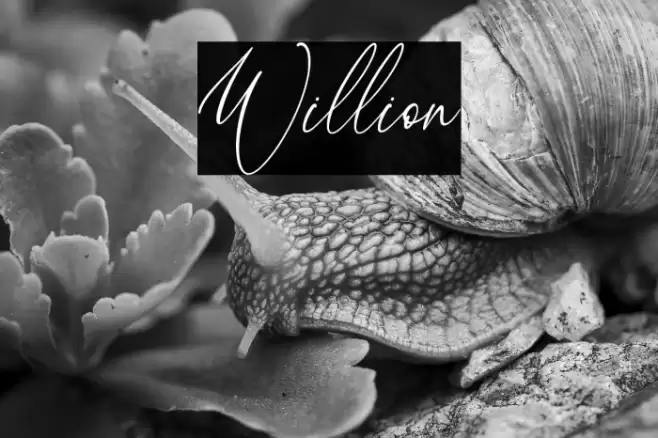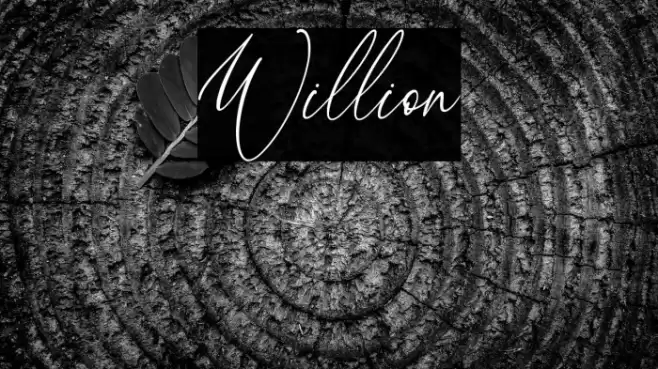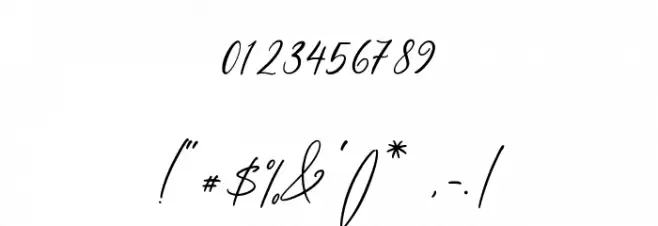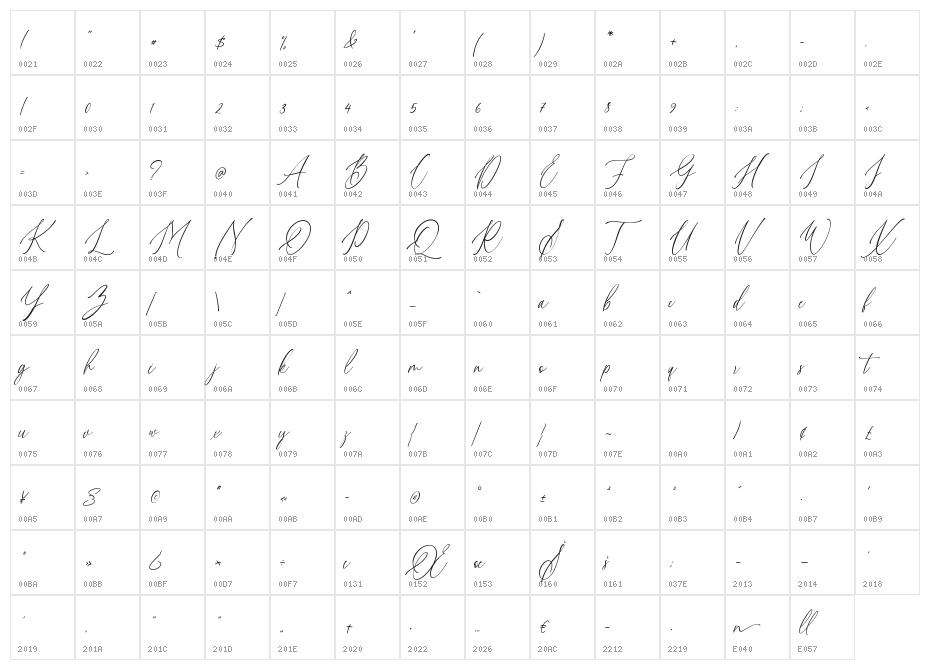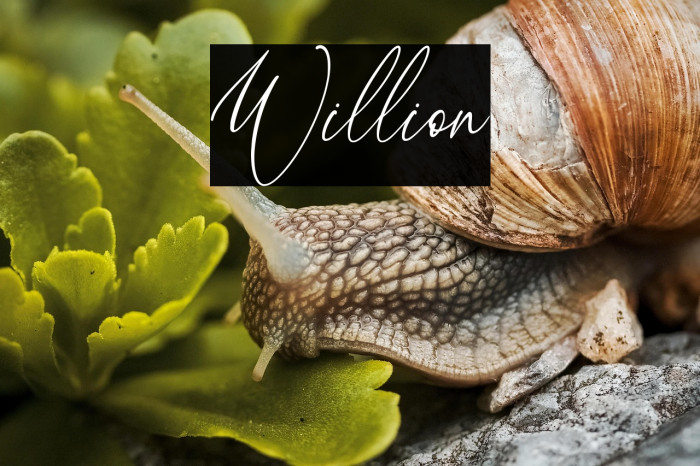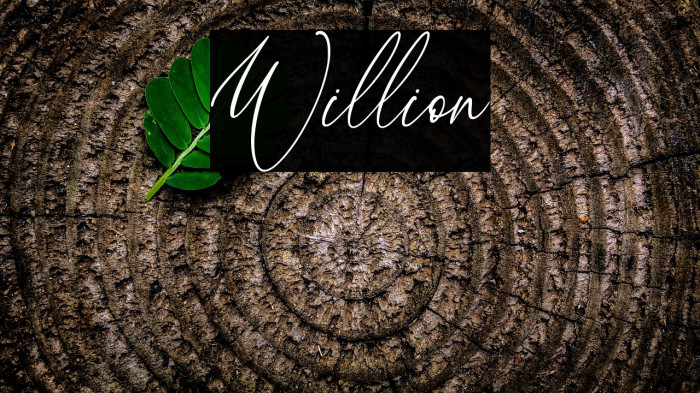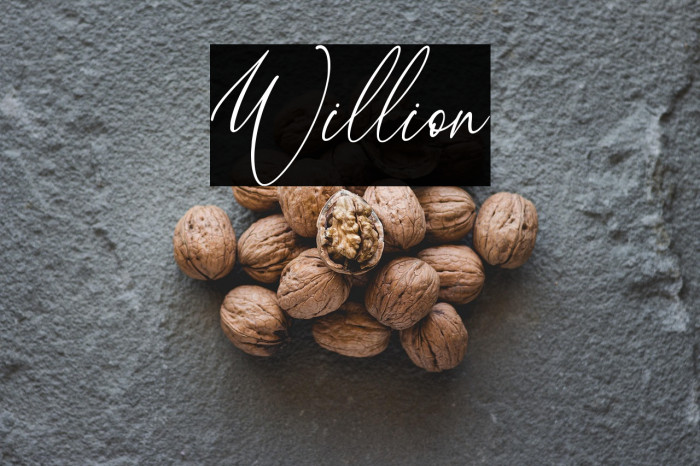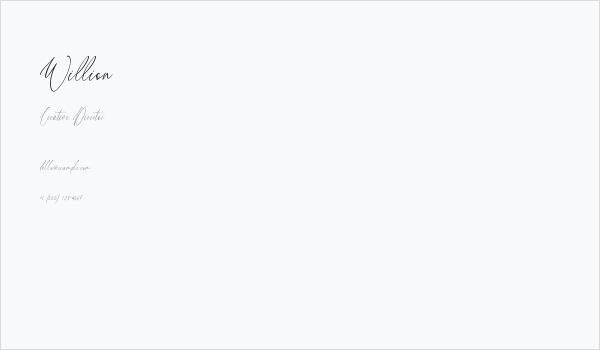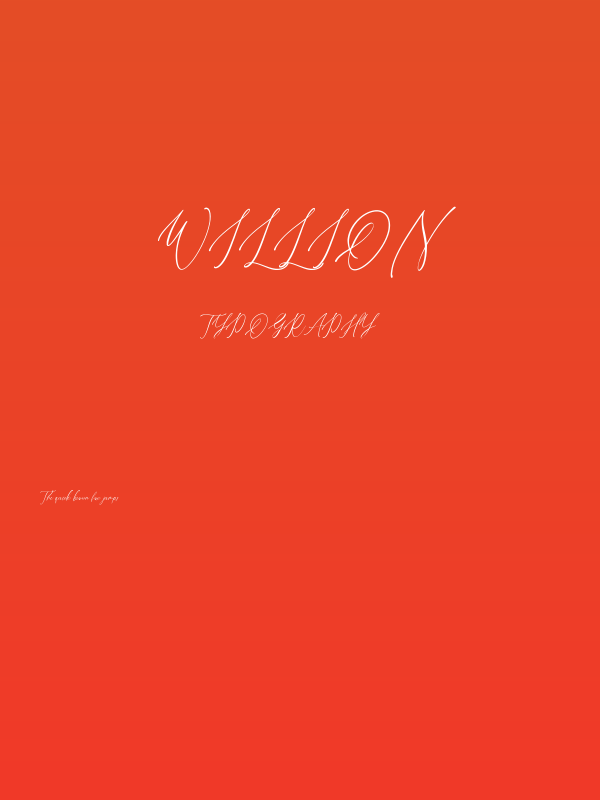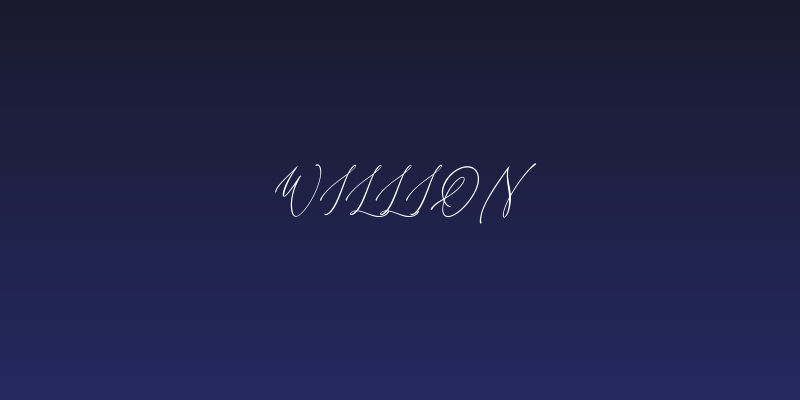
Willion Font
Willion Description
This font features an elegant and flowing script style, characterized by its graceful, cursive strokes and fluid connections between letters. The uppercase letters are particularly ornate, with sweeping lines and delicate curves that give a sense of sophistication and charm. The lowercase letters maintain a consistent style, with smooth transitions and a slightly more restrained flourish. The numerals are clear and legible, maintaining the overall aesthetic of the font. Special characters are thoughtfully designed to complement the script style, enhancing the font's versatility. This font exudes a sense of elegance and is ideal for projects that require a touch of class and refinement.
An elegant, flowing script font with graceful cursive strokes from Uncategorized fonts.
- Proposed Projects: Ideal for wedding invitations, elegant branding, personal stationery, and upscale packaging.
- Overall Style: Elegant
- Use Case: Logos, Invitations, Branding